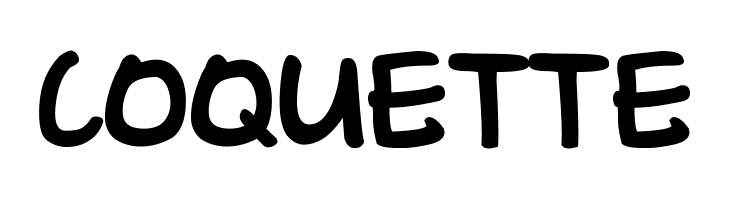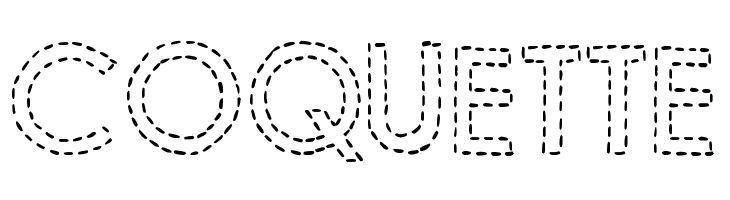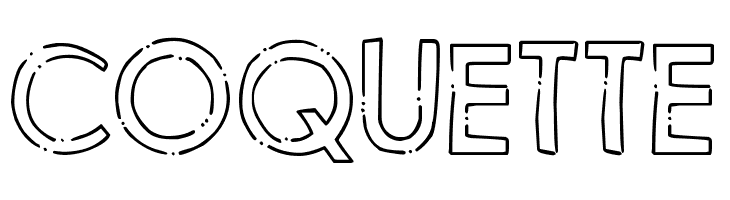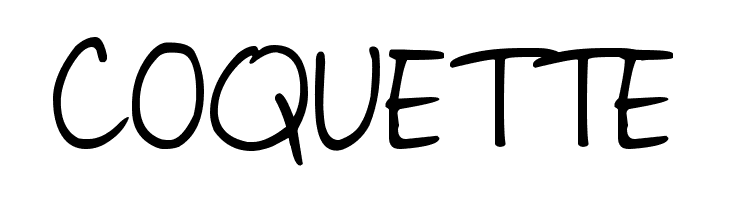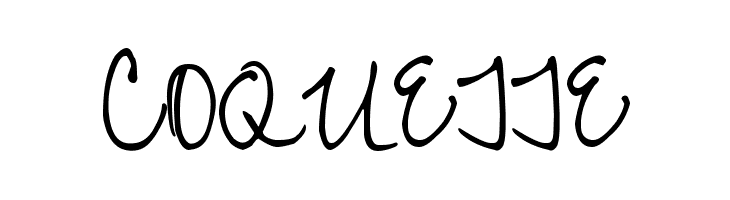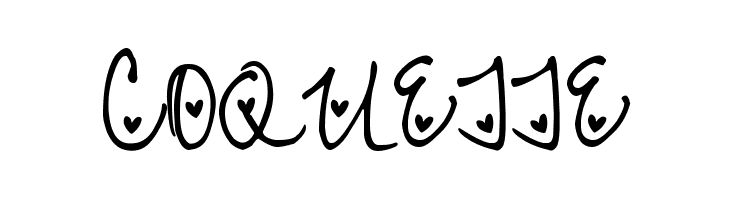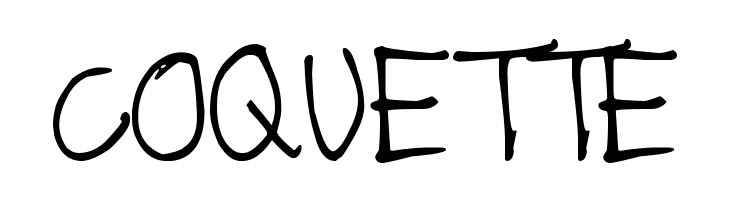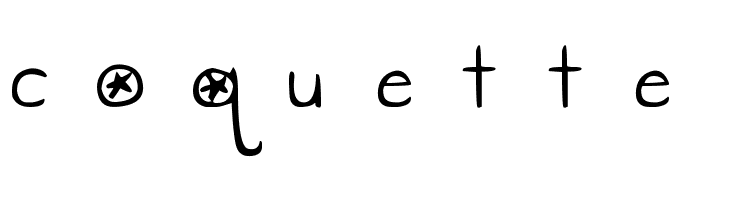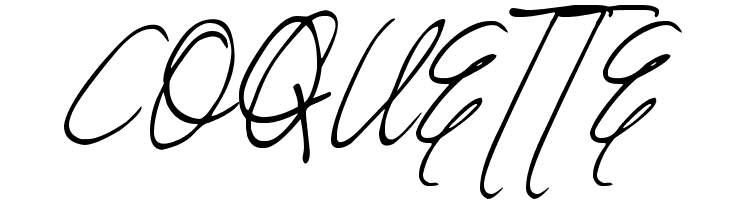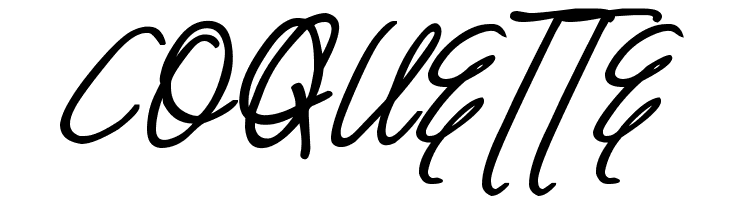
A lively, handwritten cursive font with a playful and dynamic style.
A bold, dynamic handwritten font with a lively and expressive style.
A playful, handwritten-style font with rounded, casual characters.
A playful, casual handwritten font with smooth, rounded edges.
A playful, handwritten font with whimsical character details.
A playful, handwritten font with a casual and creative vibe.
A playful, outlined handwritten font with a casual vibe.
A hand-stitched, embroidery-style font with a playful and crafty appearance.
A playful handwritten font with heart-themed decorations on each character.
A playful handwritten font with heart motifs and a whimsical, friendly style.